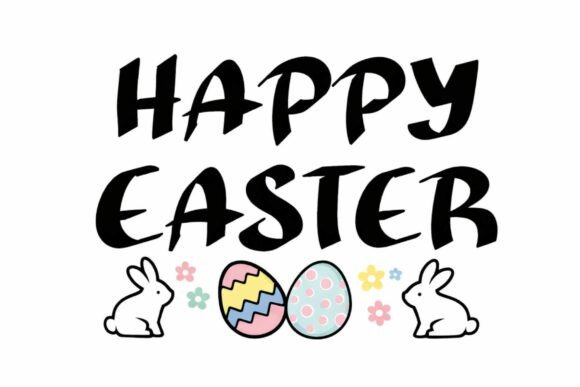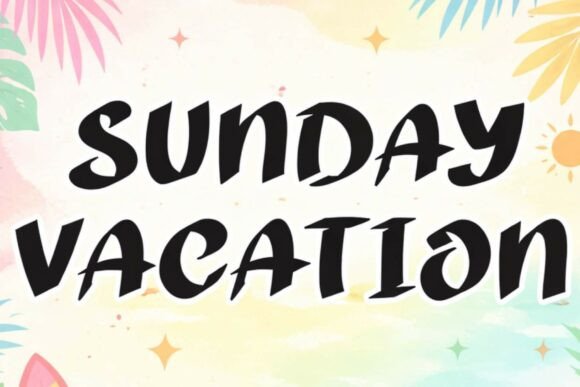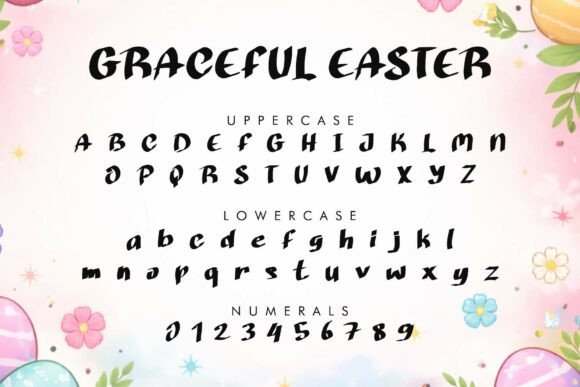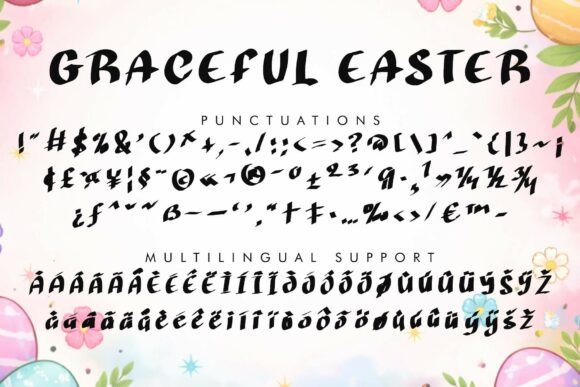
Introducing the Graceful Easter Font: Elevate Your Designs with Elegance and Fun
Are you a designer, crafter, or DIY enthusiast looking for the perfect font to add a touch of elegance and playfulness to your Easter-themed projects? Look no further than the “Graceful Easter” font! This fun display font is designed to bring a sense of joy and celebration to your designs, making it ideal for a wide range of creative projects.
What Makes the Graceful Easter Font So Special?
The “Graceful Easter” font is a versatile and feature-rich display font that offers a wide range of possibilities for designers and crafters. Here are some of its key features:
- Uppercase and Lowercase Letters: The font includes both uppercase and lowercase letters, allowing you to create a variety of text styles and combinations.
- Numbers and Punctuation: The font also includes numbers and punctuation marks, making it easy to create complex text layouts.
- Multilingual Support: With multilingual support, you can use the font to create text in multiple languages, making it perfect for international designs.
The “Graceful Easter” font is incredibly versatile and can be used for a wide range of design projects, including:
- Action Movie Titles: Add a touch of drama and excitement to your movie titles with the “Graceful Easter” font.
- Holiday-themed Designs: Create festive and fun designs for Halloween, Christmas, Easter, spring, and summer with this font.
- Banners and Branding: Use the font to create eye-catching banners and branding materials that showcase your business or organization’s personality.
- Stickers and Logos: The font is perfect for creating stickers, logos, and other graphical elements that require a bold and playful look.
- Patriotic Text: Show off your patriotic spirit with the “Graceful Easter” font, ideal for creating Independence Day, Memorial Day, or other patriotic-themed designs.
- Back to School Text: Create fun and colorful back to school designs with this font, perfect for teachers, educators, and parents.
- Business Branding: Use the font to create professional and eye-catching branding materials, such as business cards, brochures, and letterheads.
- Screen Printing and T-Shirt Designs: The font is ideal for screen printing and t-shirt designs, making it easy to create custom apparel with a unique and playful look.
Why Choose the Graceful Easter Font?
With so many fonts available, why choose the “Graceful Easter” font? Here are a few reasons why designers and crafters love this font:
- Unique and Playful Look: The font has a distinctive and playful look that sets it apart from other fonts.
- Elegant and Sophisticated: Despite its playful nature, the font still exudes elegance and sophistication, making it perfect for a wide range of design projects.
- Easy to Read: The font is clear and easy to read, even at smaller sizes, making it perfect for body text and captions.
- Highly Versatile: The font can be used for a wide range of design projects, from fun and playful to professional and elegant.
Get Creative with the Graceful Easter Font
Whether you’re a designer, crafter, or DIY enthusiast, the “Graceful Easter” font is the perfect addition to your font collection. With its unique and playful look, elegant and sophisticated feel, and high versatility, this font is sure to inspire your creativity and take your designs to the next level.